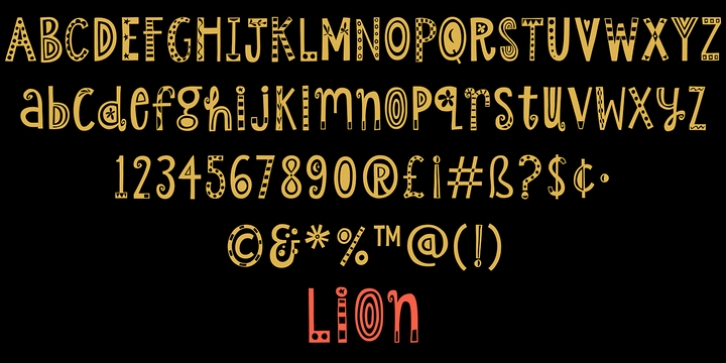
Publisher: Atlantic Fonts
Lion is playful, wild, and full of expression. Bravely mix upper and lower case at will, and turn on double-letter ligatures for added hand-made presence. Shown in posters with other Atlantic fonts including Catbird, Atlantic Doodles and Eeeek images.